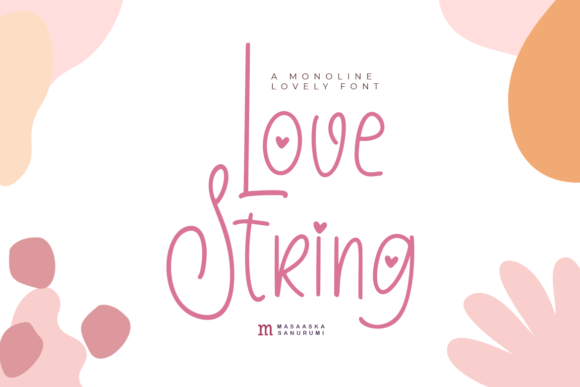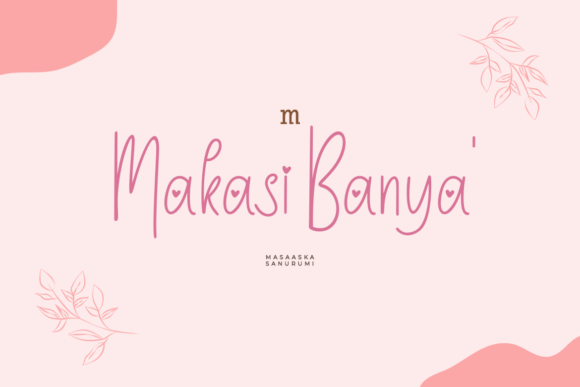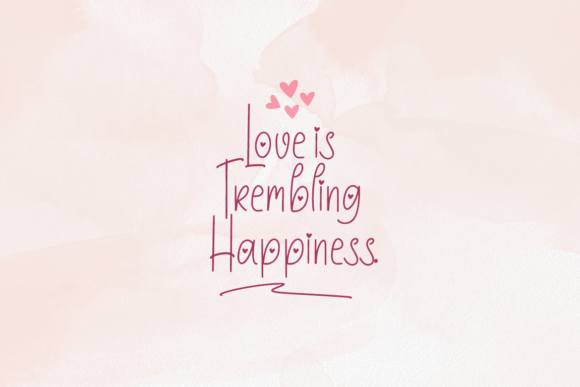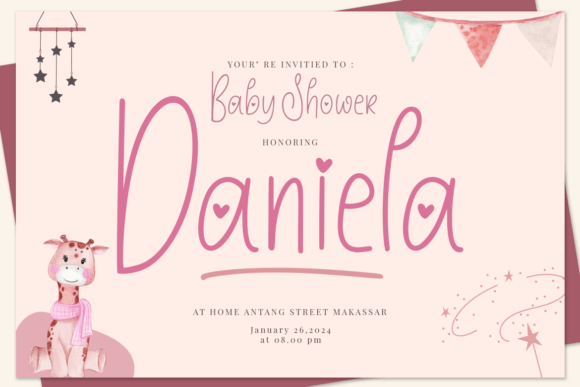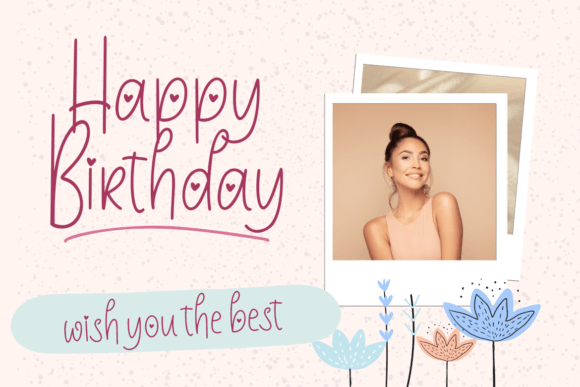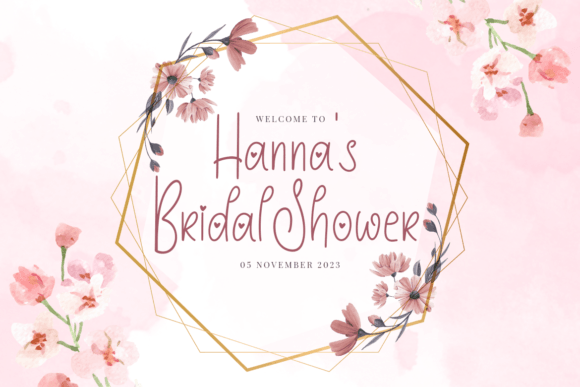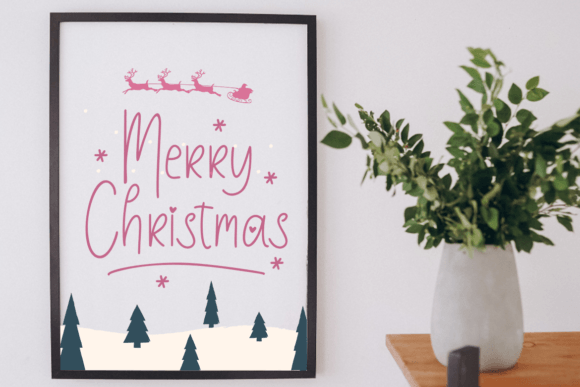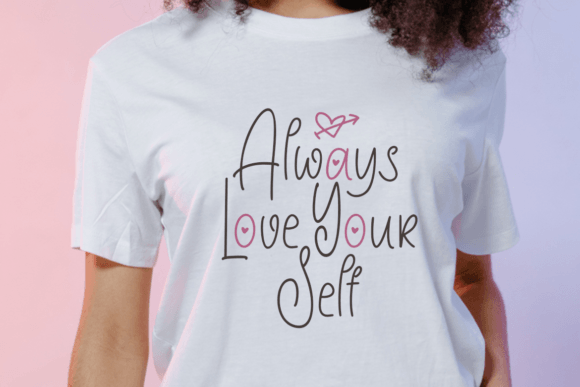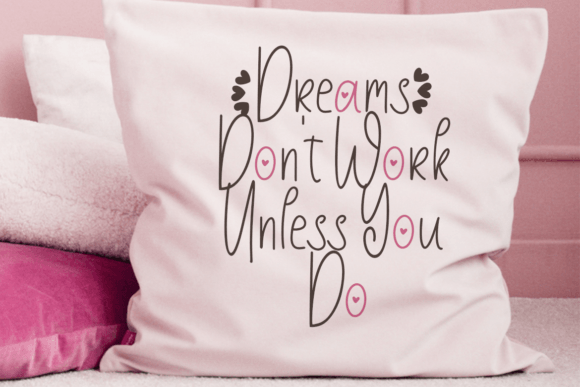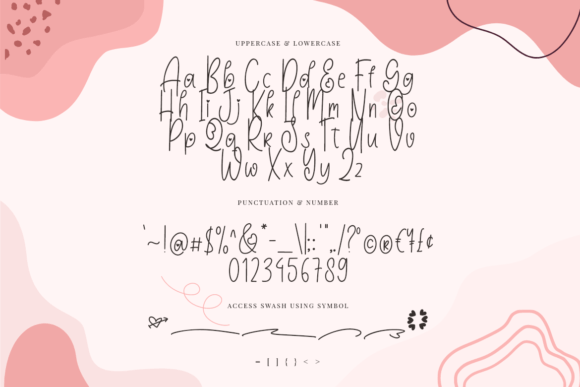
Love String Font
About Love String Font
Love String Font is a lovely monoline handwritten typeface that blends elegance with simplicity. Designed to bring a sense of softness and beauty, this font is ideal for creators who want to add a delicate personal touch to their designs. Its flowing, uniform lines give it a modern feel while retaining a handcrafted charm.
Stylish and Versatile for Every Occasion
This font works beautifully in many creative applications. Whether you’re designing wedding invitations, sharing heartfelt quotes on Instagram, or preparing DIY printable crafts, Love String Font offers a refined and graceful look that enhances your message.
Additionally, its balanced structure makes it easy to read while still feeling expressive and unique. Unlike overly decorative scripts, this monoline style maintains elegance without compromising clarity.
Where to Use Love String Font
Because of its gentle flow and stylish form, Love StringFont is perfect for:
• Instagram captions and highlight covers
• Custom greeting cards and love letters
• Wedding stationery and save-the-date designs
• Logo designs and product packaging
• Branding for boutiques or handmade goods
• Calligraphy-inspired art prints and wall decor
With so many possibilities, it’s easy to incorporate this font into both digital and print projects.
Why You’ll Love It
What makes Love StringFont special is its ability to combine beauty and function. While some script fonts are hard to work with, this one is designed to feel natural and clean, even at smaller sizes. Moreover, it’s fully PUA encoded—meaning you can easily access all special characters and swashes in most design software.